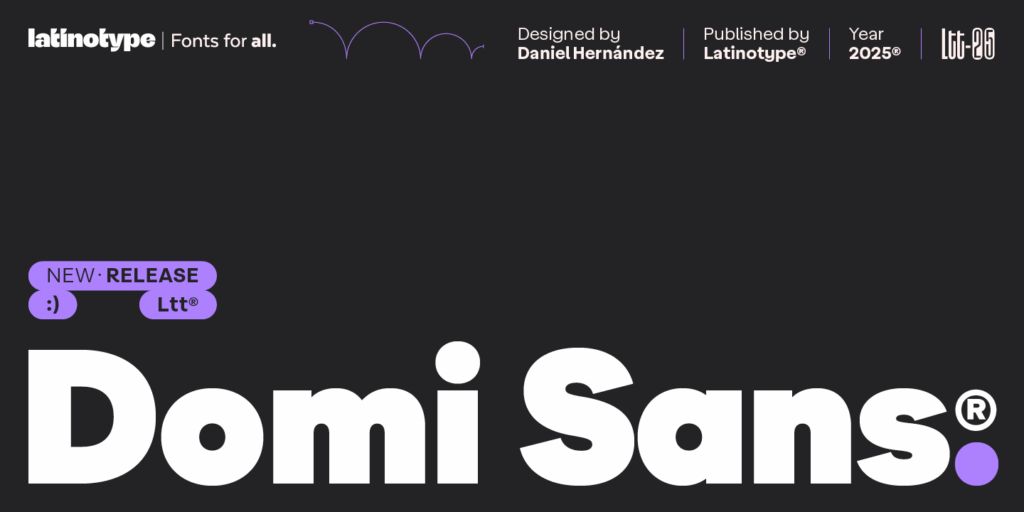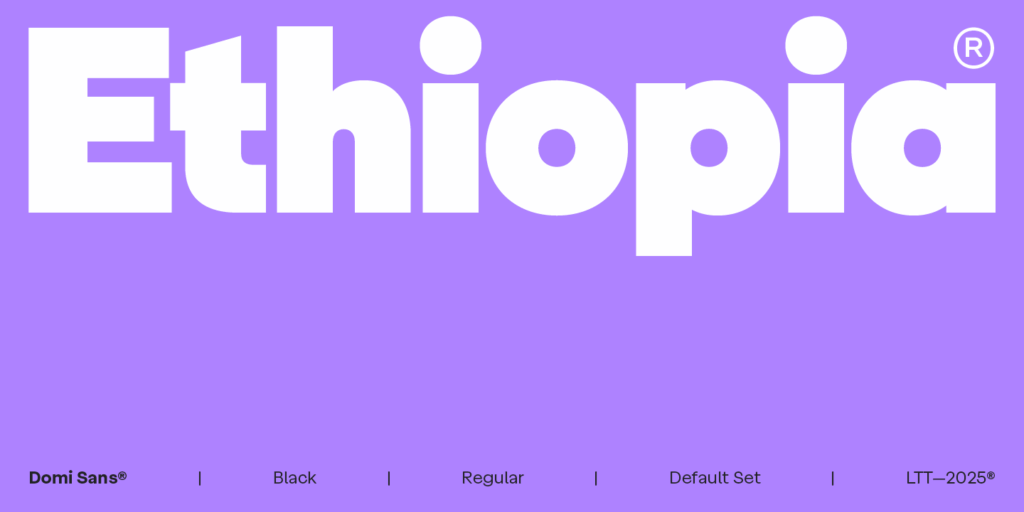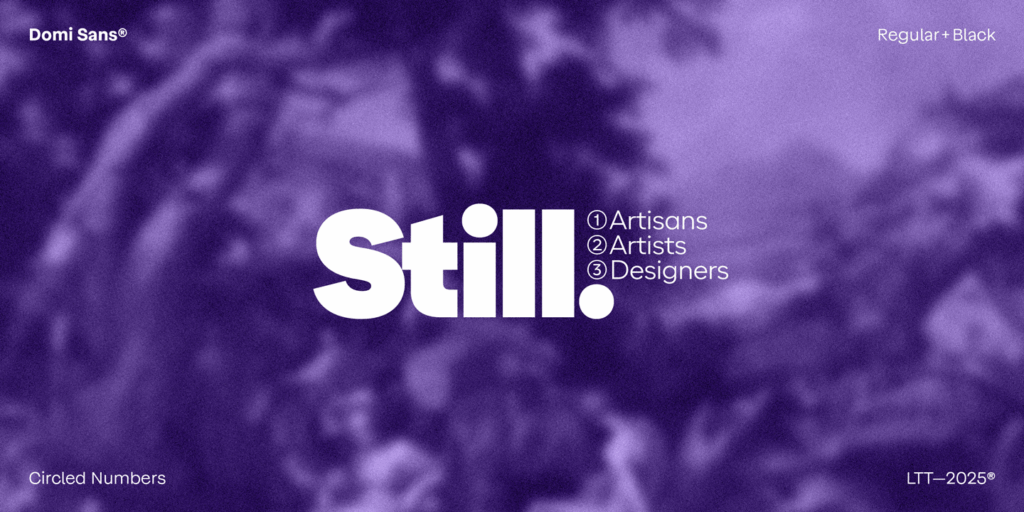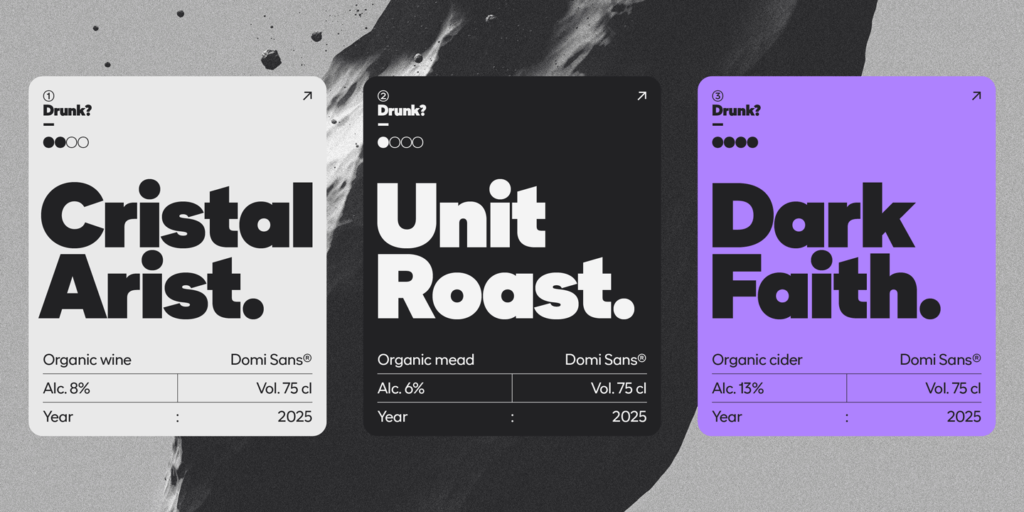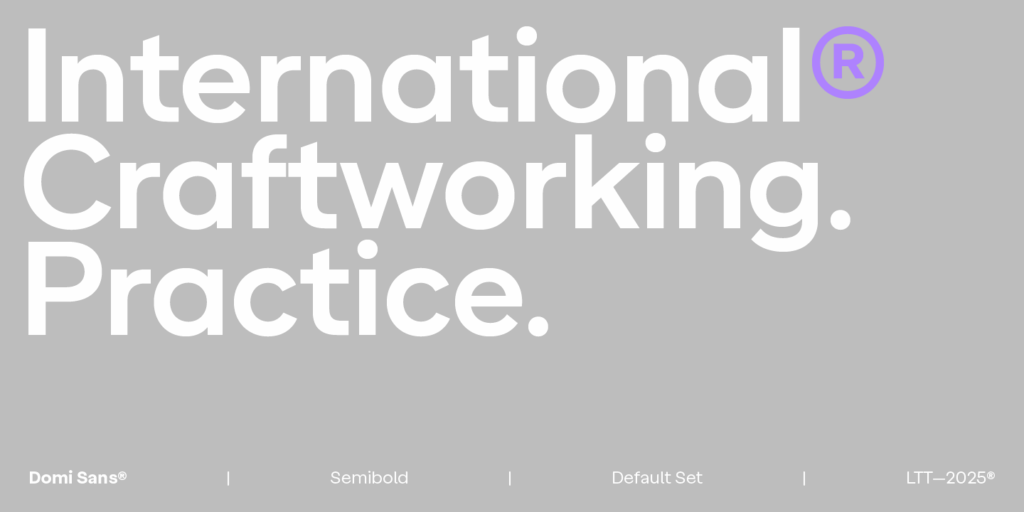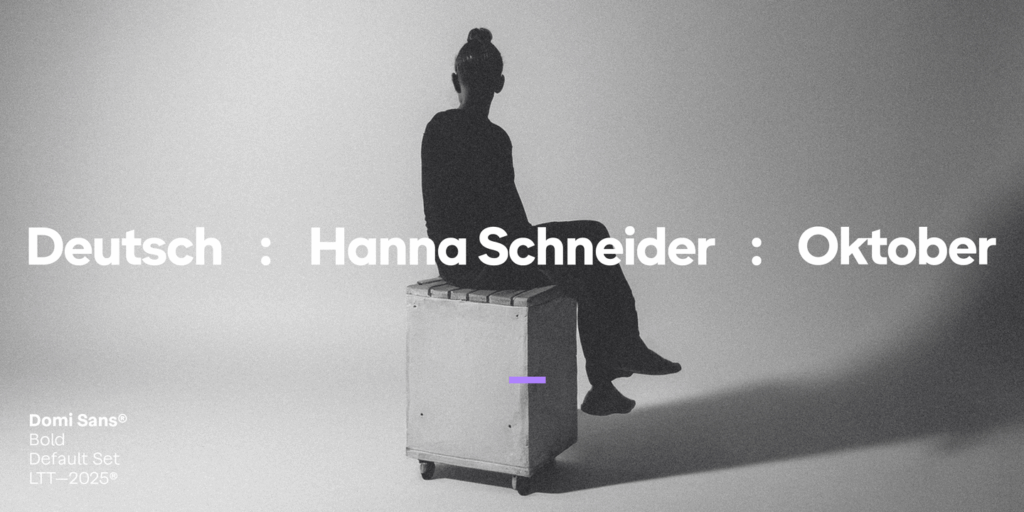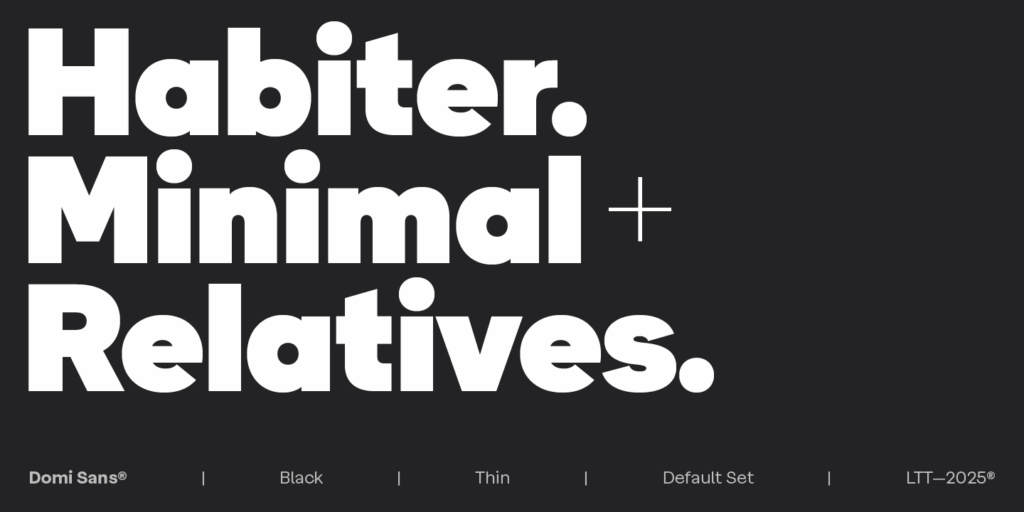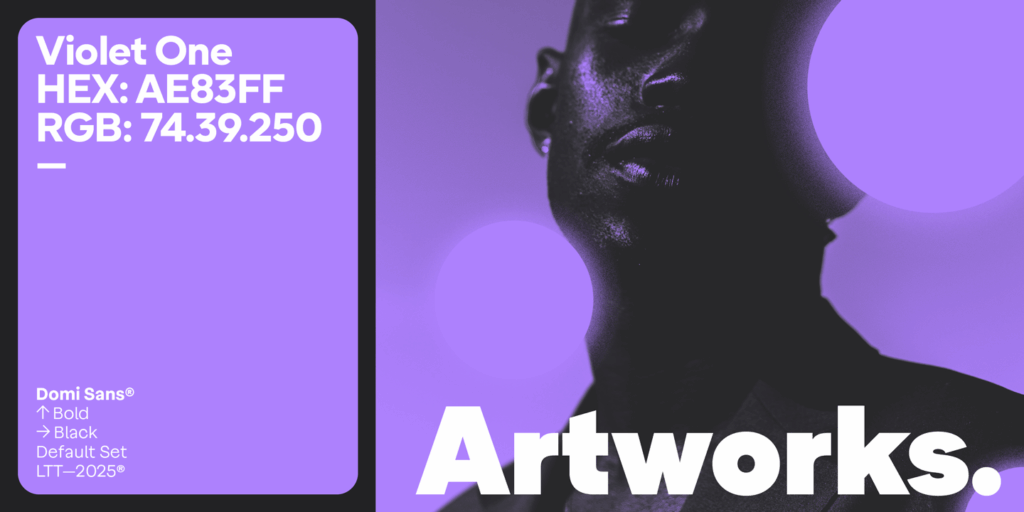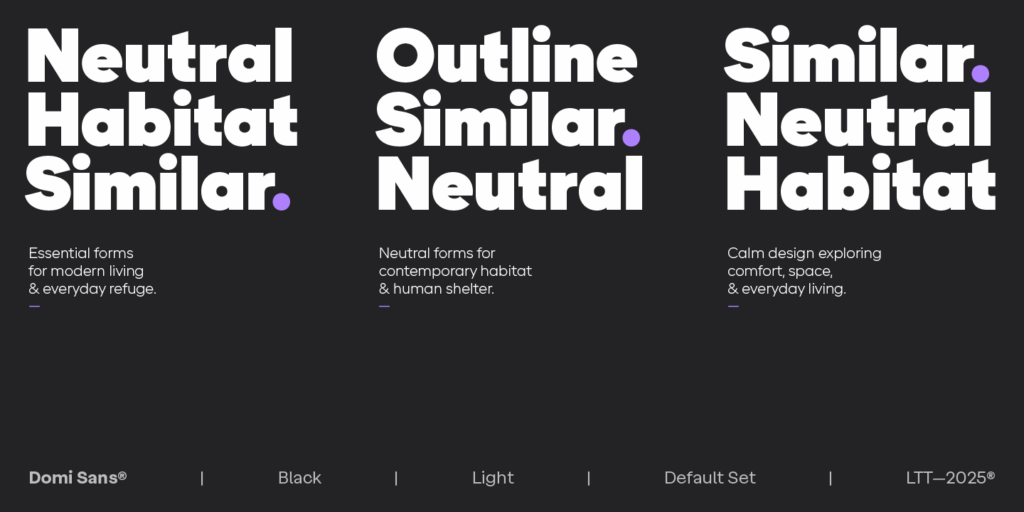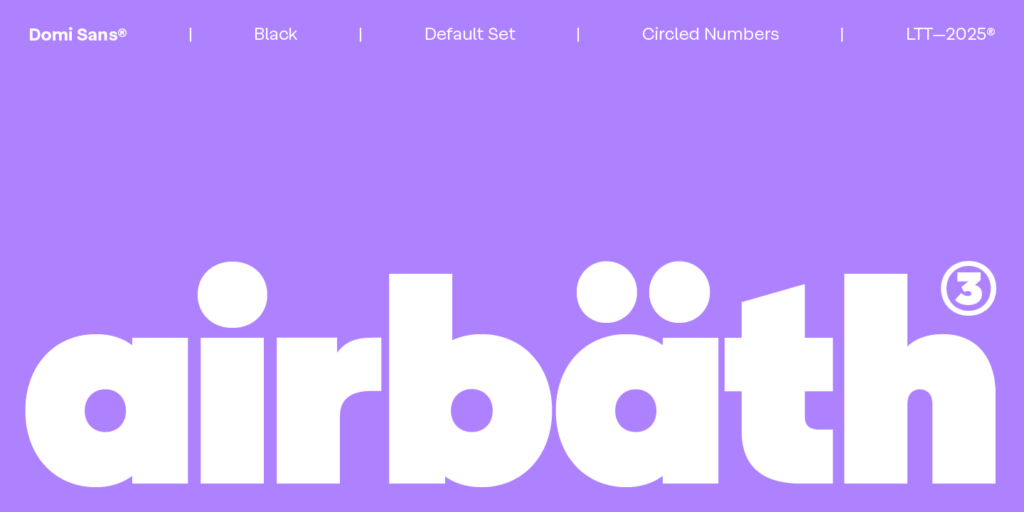
Domi Sans the evolution of a typeface,
character that can be seen and felt.
Domi Sans is a robust, straightforward sans serif typeface. Its design highlights the contrast between extreme weights—from Thin to Black—through closed forms, straight terminals, and restrained modulation, resulting in a confident and characterful tone. Designed by Daniel Hernández for Latinotype, Domi emphasizes the relationship between counterforms and rhythm, achieving a balance that works well both in typographic hierarchies and dense text blocks.
Its firm capital letters extend its versatility across industrial, fashion, cultural, signage, and graphic identity contexts, while the geometrically based lowercase provides structural clarity and style. Domi Sans offers a renewed interpretation of 20th-century typographic rationalism, reimagined with a contemporary logic suited for flexible and purposeful visual systems. Simple allows us to connect faster.